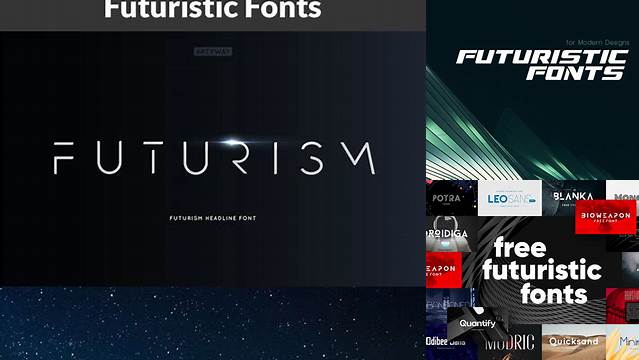
Are you guys on the hunt for futuristic fonts that can seriously elevate your design game? You've landed in the right spot! In this guide, we're diving deep into the world of free commercial-use futuristic fonts. We know how crucial typography is for making your projects pop, whether you're crafting a sleek website, designing eye-catching marketing materials, or anything in between. Let's explore what makes a font 'futuristic,' where to find these gems, and how to use them effectively.
What Makes a Font Futuristic?
When we talk about futuristic fonts, we're not just throwing around a buzzword. These fonts have specific characteristics that set them apart and give them that cutting-edge vibe. Think clean lines, geometric shapes, and a minimalist aesthetic. Futuristic fonts often evoke a sense of technology, innovation, and forward-thinking. They might include sharp angles, unique letterforms, or even stylized elements that resemble circuit boards or digital displays. The key is that they look like they belong in a sci-fi movie or a tech startup's branding materials. The weight of the font also plays a crucial role; many futuristic fonts lean towards being bold and impactful, immediately grabbing the viewer's attention. However, some excel in their sleekness and light design, offering a subtle nod to modernity. The spacing between letters (kerning) and the overall structure are meticulously crafted to ensure readability while maintaining the futuristic feel. Moreover, the use of negative space can be a significant factor. Fonts that cleverly incorporate empty areas can appear more streamlined and contemporary, aligning with the futuristic design principles. Don't underestimate the power of a well-chosen futuristic font to communicate your message with style and sophistication. Always consider how the font’s character will influence the overall perception of your project. A font’s specific attributes, such as its slant, width, and the presence of serifs or sans-serifs, also contribute to its futuristic appeal. Fonts that break away from traditional typographic norms can often be seen as more innovative and cutting-edge. For example, fonts that use disconnected letter segments or unconventional ligatures can add an extra layer of futuristic flair. The material or medium on which the font is displayed also impacts its effectiveness. What looks stunning on a digital screen might not translate well in print, and vice versa. This is why it's essential to test your font choices in various contexts to ensure they consistently deliver the desired aesthetic. In summary, a futuristic font is more than just a typeface; it's a statement. It's a way to signal that your project is modern, innovative, and ahead of the curve. By understanding the elements that define these fonts, you can make informed decisions and choose the perfect typeface to represent your vision.
Key Characteristics of Futuristic Fonts
To really nail that futuristic look in your designs, let's break down the specific elements that make these fonts so distinctive. First off, you'll often find clean lines and geometric shapes are a staple. Think about fonts that almost look like they were designed using a precise set of mathematical rules. This gives them a sense of order and modernity. Another key element is minimalism. Futuristic fonts tend to strip away unnecessary ornamentation, focusing on the essential forms of the letters. This simplicity is what makes them feel so contemporary. Then there's the use of bold strokes and impactful forms. Many futuristic fonts are designed to make a statement, so they often have a strong presence on the page or screen. However, it's not just about boldness; some excel in their sleek and light design, offering a subtle nod to modernity. Innovative letterforms are another hallmark. These fonts might feature unconventional shapes or stylized elements that you wouldn't typically see in traditional typefaces. This is where the creativity really shines, as designers push the boundaries of what a letter can look like. Consider fonts that incorporate digital or technological motifs. Some might mimic the look of circuit boards, LED displays, or other tech-inspired elements. This instantly gives them a futuristic vibe. Weight and spacing are also crucial. Futuristic fonts often have carefully considered spacing (kerning) to ensure readability while maintaining their unique aesthetic. The weight of the letters—whether they're heavy and impactful or light and airy—contributes significantly to the overall feel. Negative space plays a surprising role too. Fonts that cleverly incorporate empty areas can appear more streamlined and contemporary, aligning with futuristic design principles. In essence, a futuristic font isn't just about looking cool; it's about communicating a sense of innovation, technology, and forward-thinking design. By understanding these characteristics, you'll be better equipped to choose the perfect font for your projects. Always think about how the font's unique features align with your brand and message. Experiment with different styles to see what resonates best with your target audience. A well-chosen futuristic font can be the keystone in creating a memorable and impactful design.
How to Use Futuristic Fonts Effectively
Alright, guys, you've got your hands on some awesome futuristic fonts – now what? It’s not just about having the right tools; it’s about using them effectively. Futuristic fonts can add a serious punch to your designs, but they need to be used strategically to truly shine. Let’s dive into some tips on how to make the most of these cutting-edge typefaces. First and foremost, consider your context. Futuristic fonts are fantastic for projects that need to convey innovation, technology, or a forward-thinking vibe. Think tech startups, sci-fi themes, modern websites, and digital marketing materials. However, they might not be the best fit for more traditional or classic designs. A sleek, geometric font might look out of place in a project that calls for a serif typeface with a vintage feel. Readability is key, guys. No matter how cool a font looks, it needs to be legible. Some futuristic fonts can be highly stylized, which might make them tricky to read in large blocks of text. Use these fonts sparingly for headings, titles, and short bursts of text. For body copy, it’s often best to stick with a more classic and readable font. Pair your fonts wisely. Combining a futuristic font with a more traditional typeface can create a striking contrast that’s both eye-catching and functional. For example, pairing a bold, geometric sans-serif with a simple serif font for body text can provide a balanced and modern look. Experiment with different combinations to find what works best for your project. Think about hierarchy and emphasis. Use futuristic fonts to draw attention to key elements in your design. They're perfect for headlines, subheadings, and call-to-action buttons. By using them strategically, you can guide the viewer's eye and create a clear visual hierarchy. Consider the overall aesthetic of your design. Futuristic fonts often work best in designs that have a clean, minimalist aesthetic. Too many visual elements can clash with the font’s bold and modern feel. Keep your design uncluttered to let the font really stand out. Pay attention to kerning and spacing. The spacing between letters can significantly impact readability and the overall look of the font. Adjust the kerning to ensure that the letters are evenly spaced and easy to read. Also, consider line height and letter spacing for optimal legibility. Don’t overdo it, guys! Using too many futuristic fonts in one project can be overwhelming. Stick to one or two at most, and use them judiciously. Overuse can dilute their impact and make your design look cluttered. In summary, using futuristic fonts effectively is about balancing style with functionality. By considering the context, readability, font pairings, hierarchy, overall aesthetic, and spacing, you can create designs that are both visually stunning and highly effective. Experiment, have fun, and let your creativity shine!
Practical Tips for Using These Fonts
So, you're all set with your futuristic font, but how do you actually make it work in your designs? It's not just about dropping it in and hoping for the best. Let's explore some practical tips to ensure your font choice adds that perfect futuristic touch without overpowering your project. First off, consider the overall design context. Futuristic fonts often pair best with designs that have a clean, minimalist aesthetic. Too much clutter or too many competing elements can make your font look out of place. Think about using simple color palettes, ample white space, and streamlined layouts to complement your font choice. Readability is paramount, guys. A font can look incredibly stylish, but if your audience can't easily read it, it's not doing its job. Futuristic fonts, with their unique shapes and designs, can sometimes sacrifice legibility. Use them strategically for headings, titles, or short snippets of text, where the impact is more important than long-form readability. For body text, stick to a more classic and legible font. Pair your futuristic font with a more traditional typeface to create a balanced and harmonious design. For instance, a bold, geometric futuristic font might look fantastic paired with a simple serif font for body copy. This creates a visual contrast that's both eye-catching and functional. Experiment with different pairings to find the perfect balance for your project. Think about hierarchy and emphasis. Use your futuristic font to draw the viewer's eye to the most important elements of your design. Headlines, subheadings, and call-to-action buttons are all great candidates for a futuristic typeface. This helps guide the reader through your design and highlights key information. Pay attention to kerning and spacing. The space between letters can make a huge difference in how legible and visually appealing your font is. Adjust the kerning to ensure your letters are evenly spaced and easy to read. Also, consider line height and letter spacing to optimize readability, especially in longer text sections. Experiment with size and weight. A futuristic font can have a different impact depending on its size and weight. A large, bold version can make a powerful statement, while a smaller, lighter version might add a subtle futuristic touch. Play around with different sizes and weights to see what works best for your design. Don't overuse it, guys! It’s tempting to use your cool new font everywhere, but restraint is key. Too much of a futuristic font can be overwhelming and detract from your overall design. Stick to using it strategically in key areas, and let other elements of your design support the message. In summary, using futuristic fonts effectively involves balancing style with usability. By considering the context, readability, font pairings, hierarchy, spacing, and restraint, you can create designs that are both visually stunning and highly effective. Remember, a font is just one tool in your design arsenal; use it wisely to achieve your desired effect.
So there you have it, guys! A comprehensive guide to the wonderful world of free commercial-use futuristic fonts. We've explored what makes a font futuristic, where to find them, and how to use them effectively. Remember, the key to great design is not just having the right resources, but also knowing how to use them. Futuristic fonts can add a serious wow factor to your projects, but they need to be used strategically and with careful consideration for context, readability, and overall design harmony. Don't be afraid to experiment and push boundaries, but always keep your audience and your message in mind. With the tips and resources we've shared, you're well-equipped to create stunning, cutting-edge designs that stand out from the crowd. So go ahead, dive in, and let your creativity soar! Happy designing!